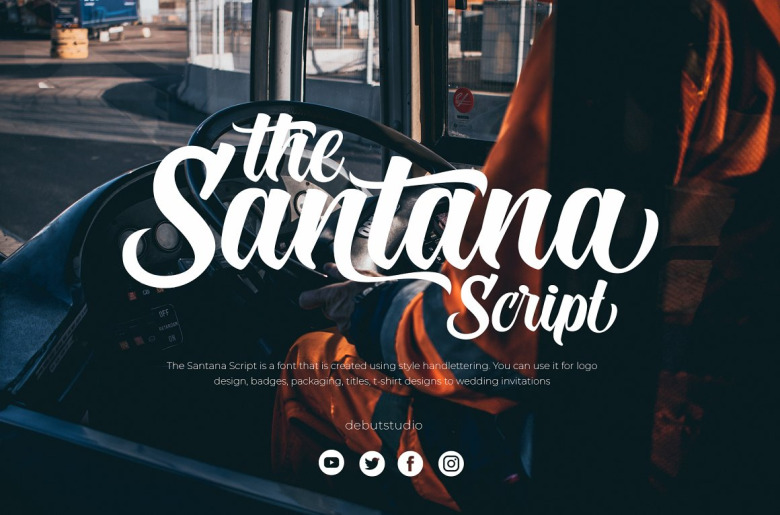
The Santana Script Font
Ntroducing The Santana Script font is a very beautiful kind of typeface which feels known to many calligraphic influences and but maintains the sense of modernity and sophistication, it is crafted to become a true favorite.
Get inspired by its beautiful wideness. Fall in love with it and bring your projects to the highest levels! This font is fitting for logo design, badges, packaging, titles, T-s weatshirt, or t-shirt design, and wedding invitation.
The Santana Script Handwritten Font